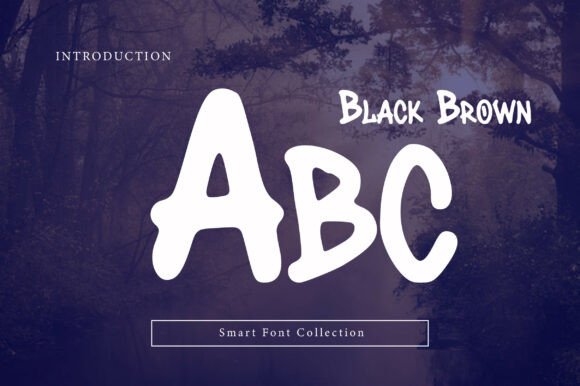
Introducing Black Brown Font: A Bold and Energetic Handwritten Display Font
Are you looking for a font that can add a touch of raw energy and organic texture to your designs? Look no further than the Black Brown font, a bold and casual handwritten display font that is sure to make your message heard loud and clear.
The Characteristics of Black Brown Font
The Black Brown font is a powerhouse of character and organic texture, featuring heavy, expressive strokes that mimic the look of a thick marker or a brush dipped in ink. Its bold and energetic strokes give it a rugged, hand-drawn aesthetic that is perfect for outdoor brands, rustic cafe menus, or indie music posters.
One of the defining characteristics of the Black Brown font is its raw marker/brush feel, which gives it a unique and distinctive look. The font’s heavy visual weight commands attention, yet its rounded edges and slight irregularities keep it feeling approachable and grounded rather than aggressive.
Perfect for Headline Typography and Logo Design
Because of its heavy visual weight, the Black Brown typeface is a dream for headline typography and logo design. It provides a “crafted” feel that works brilliantly when overlaid on nature photography or textured paper backgrounds.
Whether you’re designing a poster, a logo, or a headline, the Black Brown font is sure to make a statement. Its bold and energetic strokes are perfect for grabbing attention and conveying a sense of energy and excitement.
Pairing Black Brown Font with Other Fonts
To enhance its impact, pair the Black Brown font with a very light monoline font or a simple typewriter face to create a striking contrast. This will help to balance out the boldness of the Black Brown font and create a visually appealing design.
For example, you could pair the Black Brown font with a clean and simple sans-serif font like Open Sans or Lato. This will create a nice contrast between the bold and energetic Black Brown font and the clean and simple sans-serif font.
Uses for Black Brown Font
The Black Brown font is perfect for a variety of design projects, including:
- Outdoor brands: The Black Brown font’s rugged and hand-drawn aesthetic makes it perfect for outdoor brands that want to convey a sense of adventure and energy.
- Rustic cafe menus: The font’s bold and energetic strokes make it perfect for rustic cafe menus that want to add a touch of warmth and personality.
- Indie music posters: The Black Brown font’s raw marker/brush feel and energetic strokes make it perfect for indie music posters that want to convey a sense of energy and excitement.
- Headline typography: The font’s heavy visual weight and bold strokes make it perfect for headline typography that wants to grab attention.
- Logo design: The Black Brown font’s crafted feel and bold strokes make it perfect for logo design that wants to convey a sense of energy and excitement.
Tips for Using Black Brown Font
Here are a few tips for using the Black Brown font:
- Use it sparingly: Because of its bold and energetic strokes, the Black Brown font can be overwhelming if used too much. Use it sparingly to create a striking contrast.
- Pair it with other fonts: Pair the Black Brown font with other fonts to create a visually appealing design.
- Experiment with different colors: The Black Brown font looks great in a variety of colors, so experiment with different colors to find the one that works best for your design.
The Black Brown font is a bold and energetic handwritten display font that is perfect for designers and crafters who want to add a touch of raw energy and organic texture to their designs. Its heavy, expressive strokes and raw marker/brush feel make it perfect for outdoor brands, rustic cafe menus, or indie music posters.
With its crafted feel and bold strokes, the Black Brown font is a dream for headline typography and logo design. So why not give it a try and see how it can add a touch of energy and excitement to your designs?